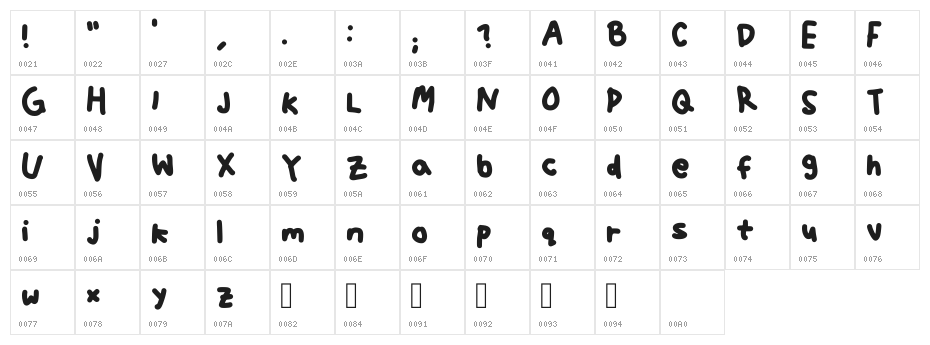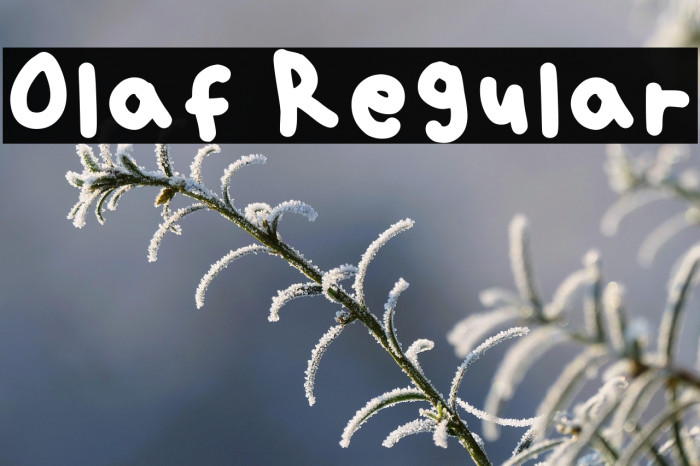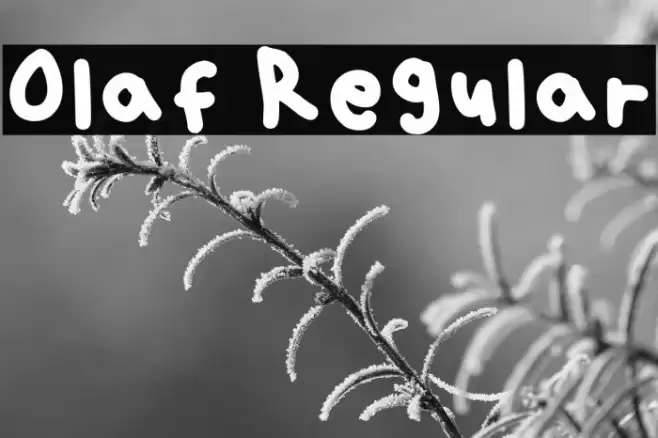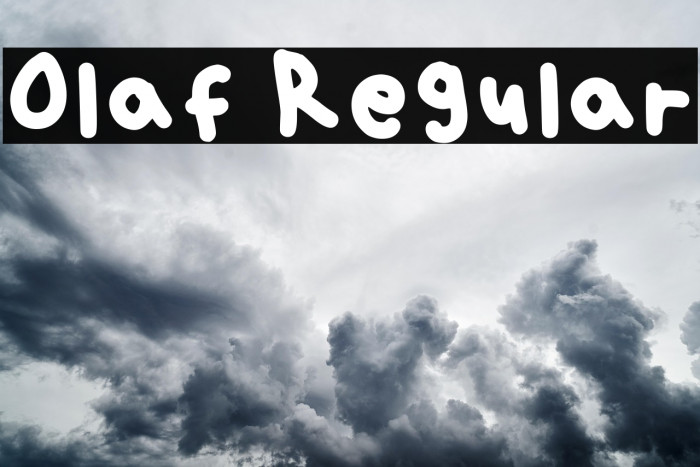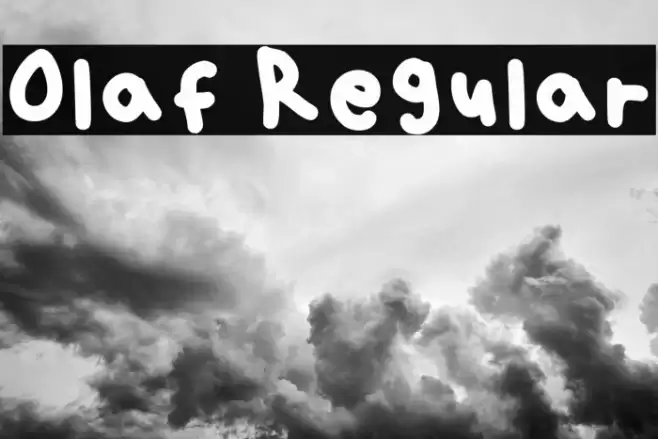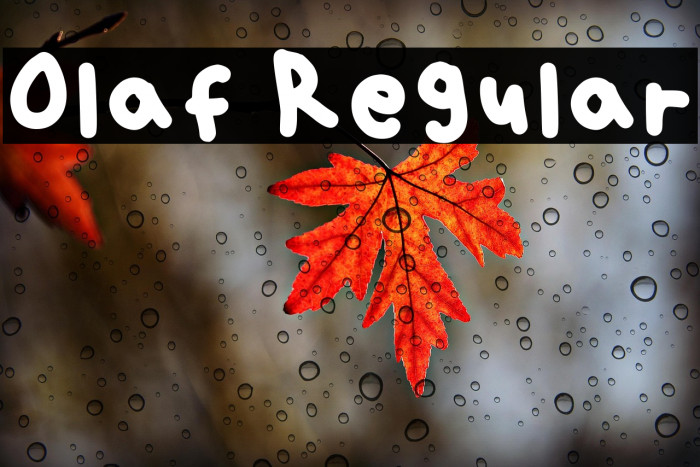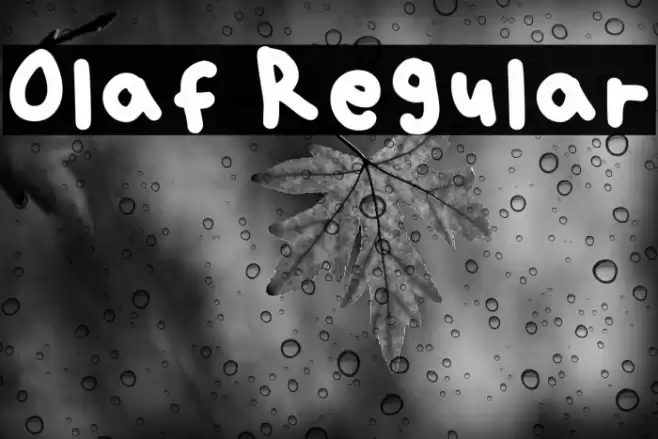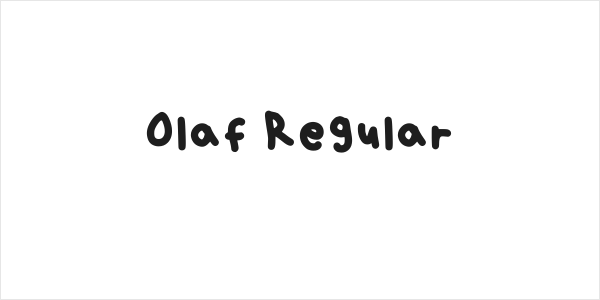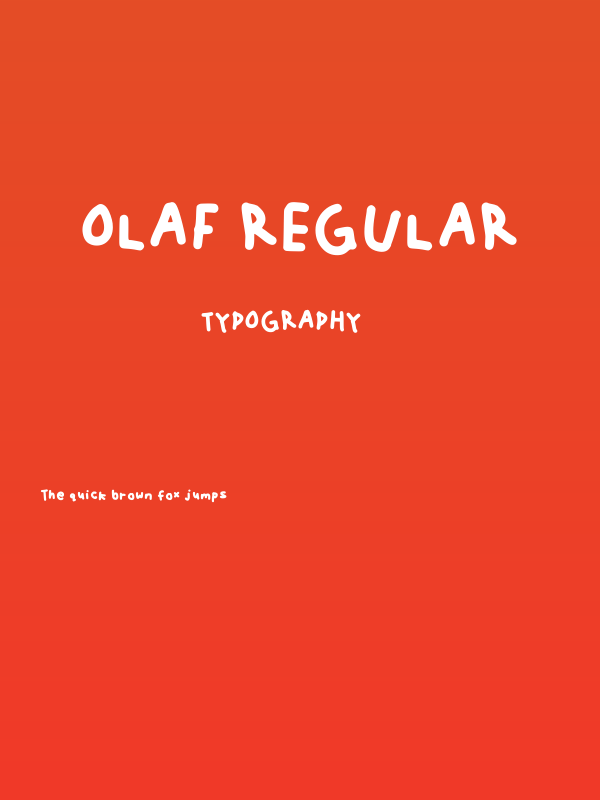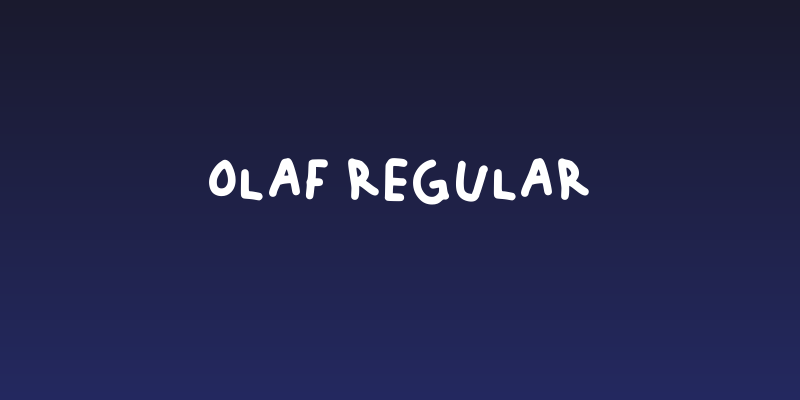
Olaf Regular Font
Olaf Regular Description
This playful and bold font features a handwritten style with rounded edges, giving it a friendly and approachable appearance. The characters are slightly irregular, adding a whimsical touch that is both charming and informal. The uppercase and lowercase letters maintain a consistent style, with a uniform thickness that ensures readability. The numbers and special characters follow the same design principles, making the font versatile for various uses. Its boldness and unique style make it stand out, ideal for projects that require a personal and creative touch.